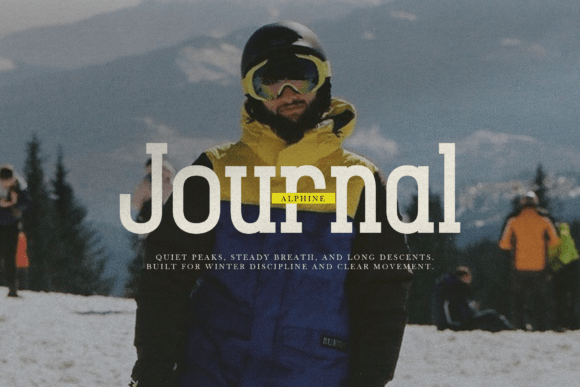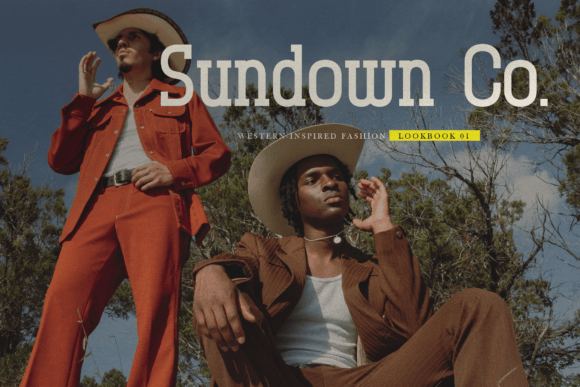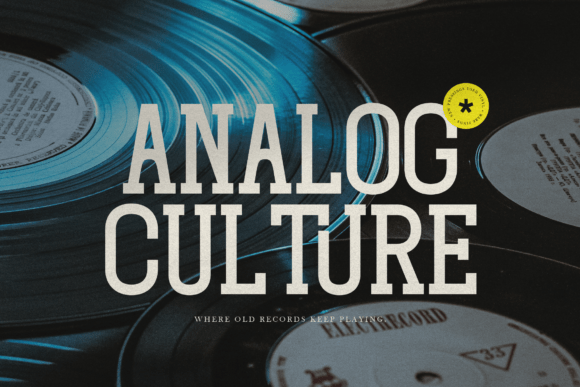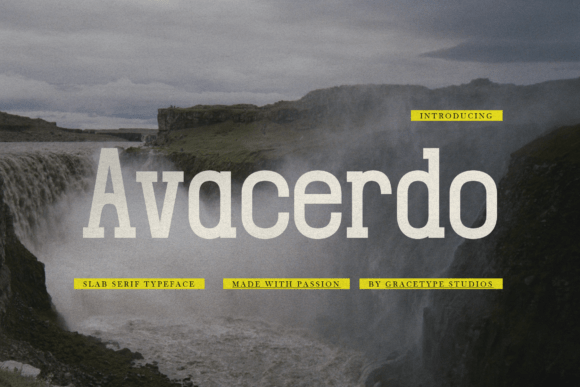
Introduction to Avacerdo Font
Avacerdo is a powerful and cinematic slab serif typeface designed to convey a sense of monumental strength and enduring beauty.
Characterized by its high x-height, sturdy vertical stems, and a unique β€œarched” bridge on the lowercase β€˜n’ and β€˜r’, this font balances industrial precision with a flowing, organic rhythm Its clean, impactful presence makes it a premier choice for outdoor adventure branding, high-end editorial titles, environmental signage, and monumental logo designs.
Key Features of Avacerdo Font
Why Choose Avacerdo Font?